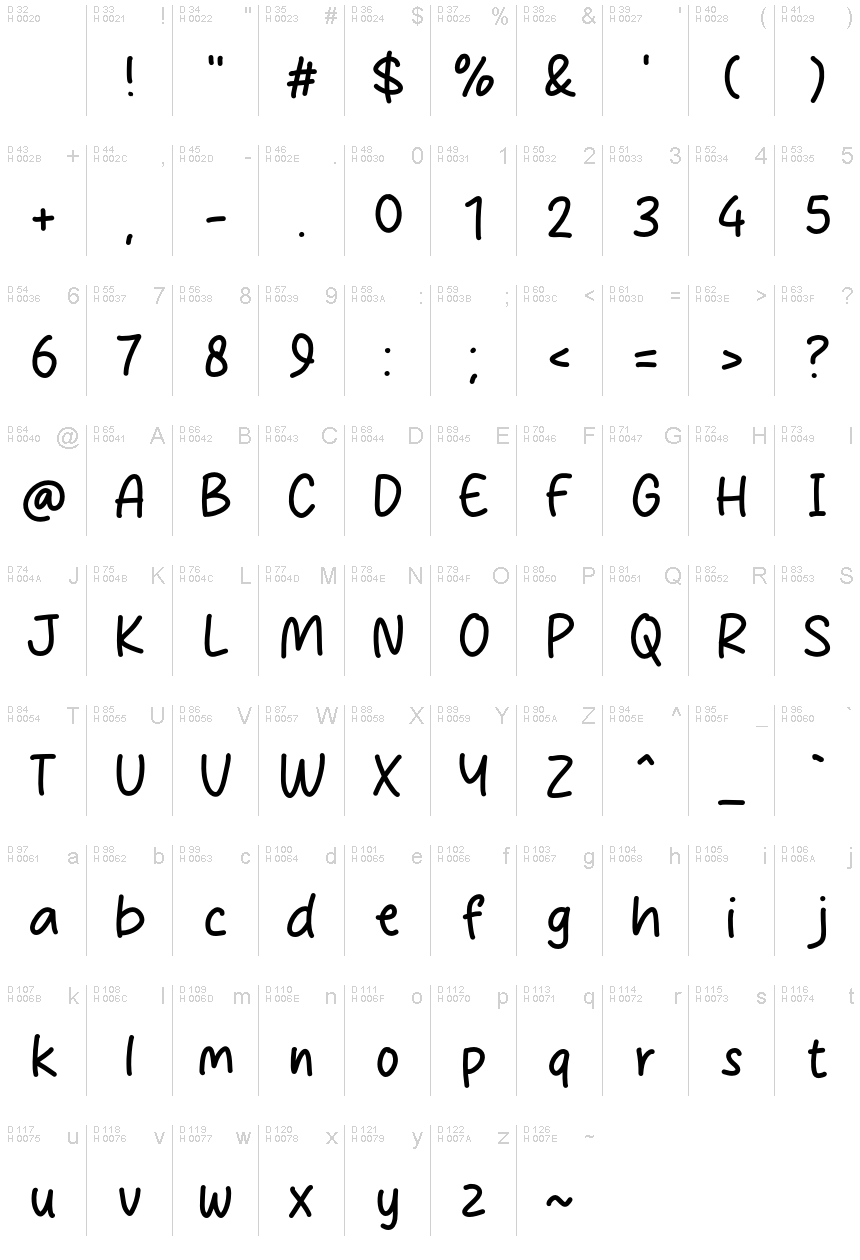
Baelast
Baelast font, crafted by MJType, exudes a charming handwritten style that captures the essence of personal expression. Its fluid strokes and playful loops create an inviting aesthetic, making it feel both approachable and artistic. The boldness of certain characters stands out, while others dance delicately across the page, adding an element of whimsy.
Ideal for projects that seek to convey warmth and authenticity, Baelast shines in branding for artisanal products, event invitations, or creative social media campaigns. Its unique character makes it perfect for adding a touch of individuality to any design context. Embrace Baelast for a signature look that resonates with creativity and personal touch.